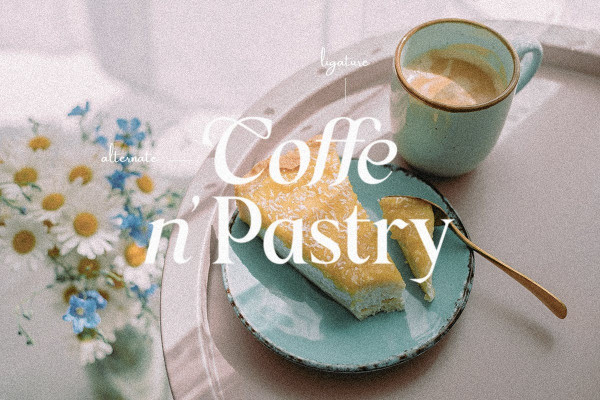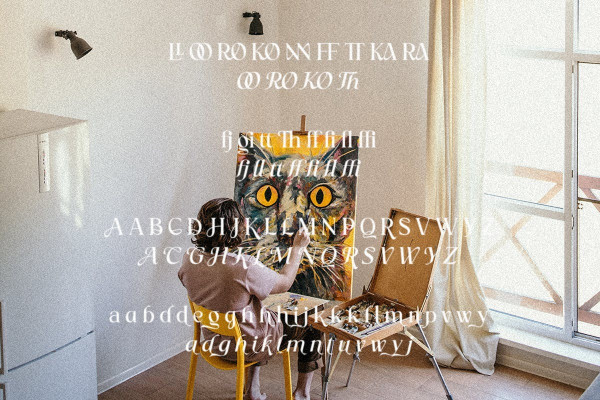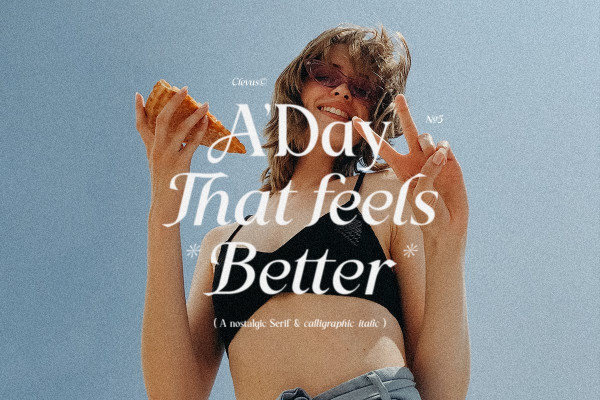
A Day That Feels Better Font
A Day That Feels Better Font, created by Clevus, a nostalgic serif and calligraphic italic that has a unique style and modern look. This typeface is perfect for an elegant and luxurious logo, book or movie title design, fashion brand, magazine, clothing, letters, quotes and much more.